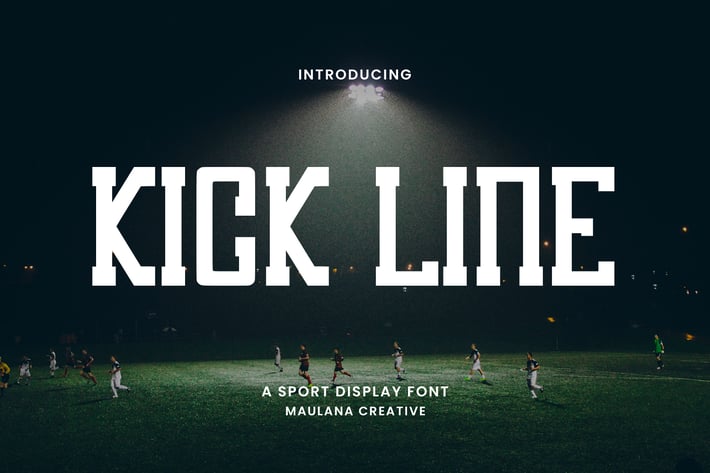
Kick Line Sport Display Font
Kick Line is a sport display font. To give you an extra creative work. Kick Line font support multilingual language. This font is good for logo design, Social media, Movie Titles, Books Titles, a short text even a long text letter and good for your secondary text font with script or serif. Make a stunning work with Kick Line font.